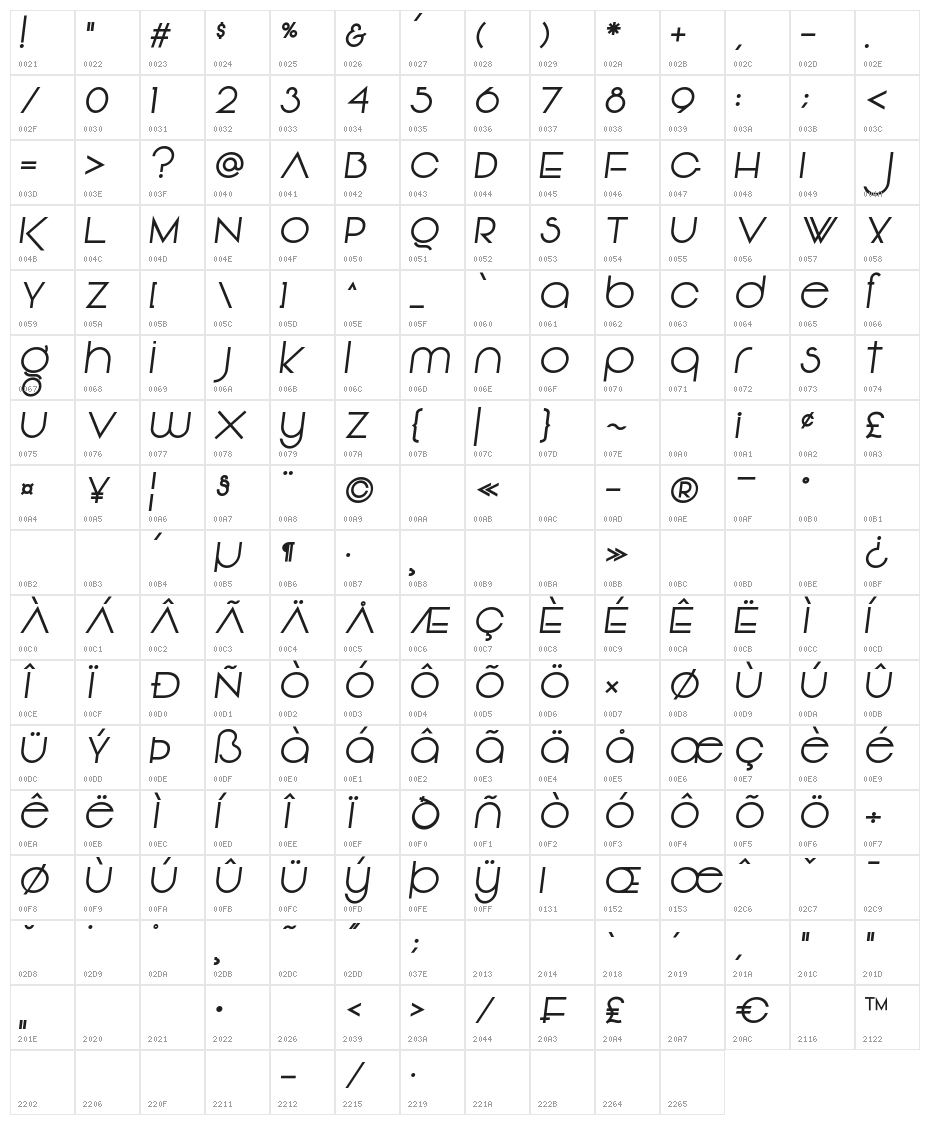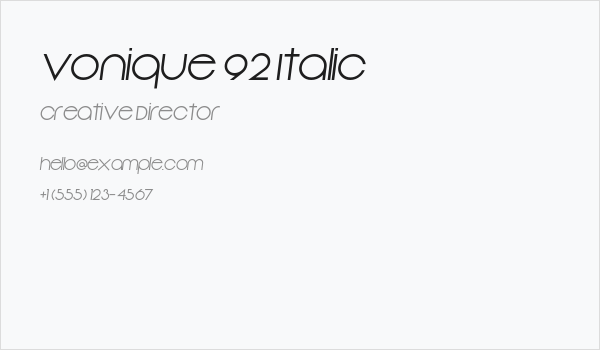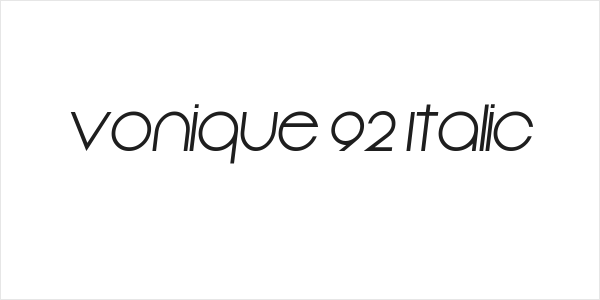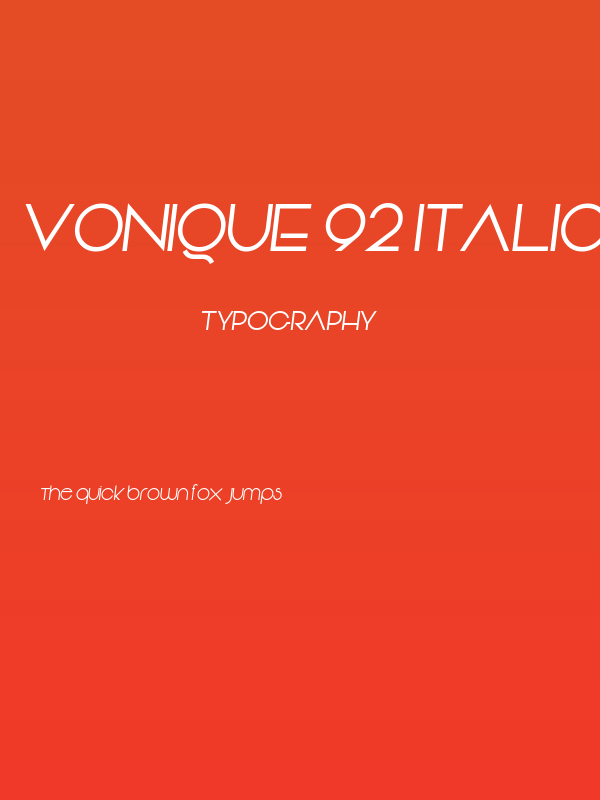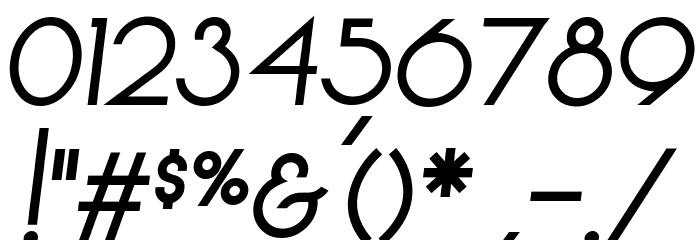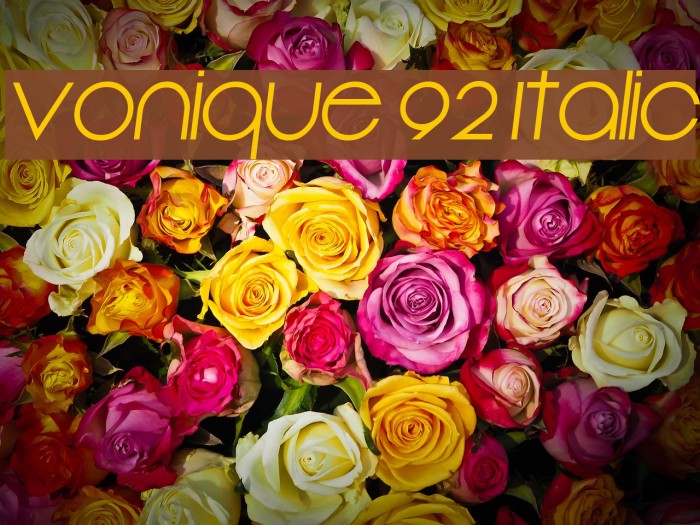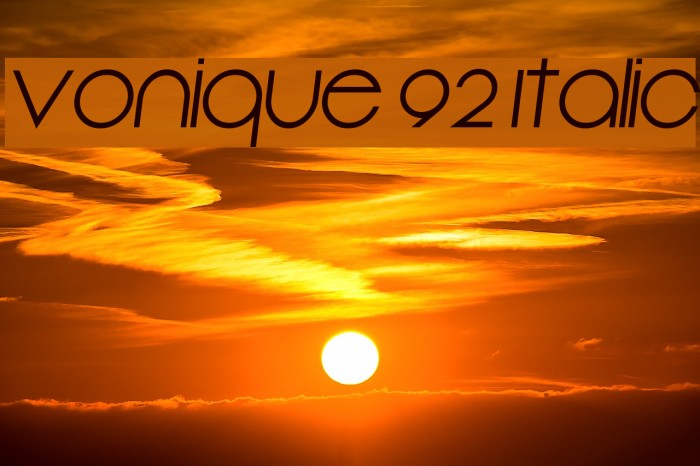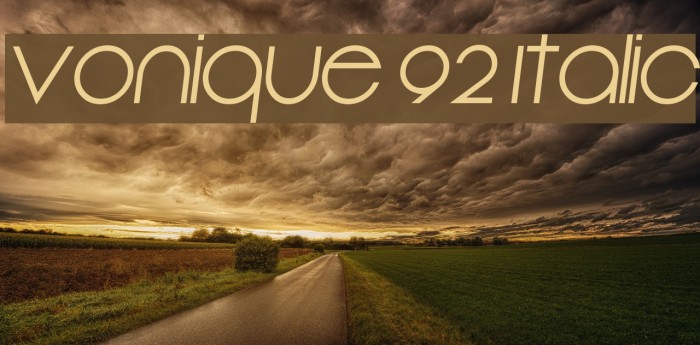
Vonique 92 Italic Font
Vonique 92 Italic Description
This font features a sleek, modern design with a distinct italic slant, giving it a dynamic and forward-moving appearance. The characters are crafted with clean, geometric lines and a consistent stroke width, contributing to a minimalist aesthetic. The uppercase letters are tall and elegant, while the lowercase letters maintain a smooth, flowing form. Numbers and special characters are designed with the same attention to detail, ensuring uniformity across all glyphs. The overall style is contemporary, making it suitable for a variety of digital and print applications.
| Use Case | Headlines, Logos, Digital interfaces |
| Proposed Projects | Ideal for branding, editorial design, digital interfaces, and modern advertising campaigns. |